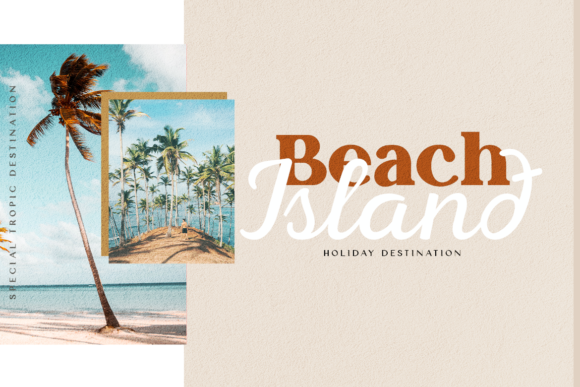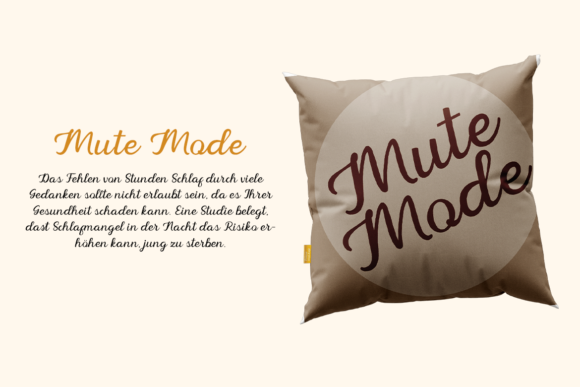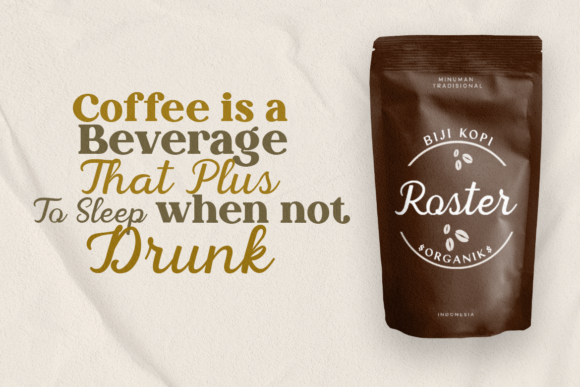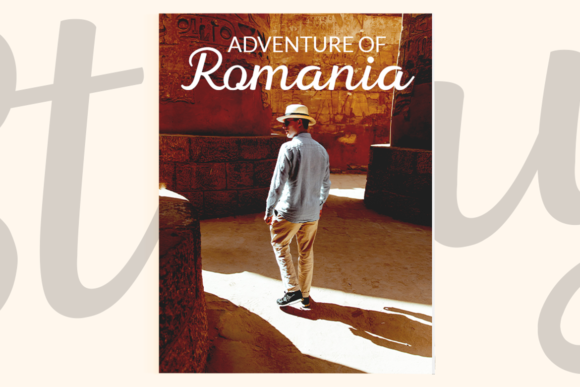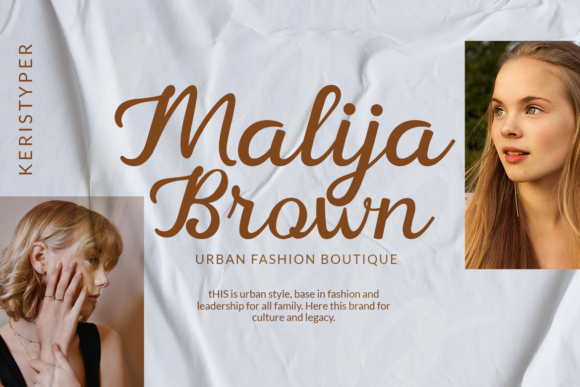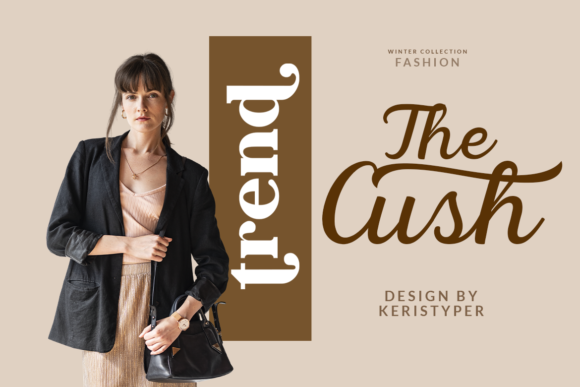
Discover the Elegance of Handwritten Design
There’s nothing quite like the thrill of creating something beautiful from scratch. Whether you’re working on a new logo, crafting the perfect social media post, or designing a book cover, the process can be just as magical as the end result. As you sit in front of your computer, pencil in hand, or fingers on keyboard, the possibilities begin to swirl in your mind.
That’s where the Carlony Font comes in – a delicate, elegant, and flowing handwritten font that brings a touch of sophistication to any design. With its beautiful and well-balanced characters, it’s the perfect addition to your design arsenal. Whether you’re a seasoned pro or just starting out, the Carlony Font is an invaluable tool that will help you create spectacular designs that leave a lasting impression.
Carlony Font Key Features
- Unique Characteristic: Carlony Font features a unique blend of modern and vintage elements, making it ideal for creative projects that require a distinctive look.
- Style: Carlony Font is available in a single style, but its versatility makes it suitable for a variety of design applications, from body text to display headings.
Carlony Font Review
Overall, I found Carlony Font to be a unique and stylish font that could add a touch of elegance to various design projects.
Here are some of its strengths: ✨
- Fancy and creative, making it perfect for luxury brands, invitations, and special events.
- Features a wide range of font weights, from light to bold, giving designers more flexibility.
- Works well in headings and titles, grabbing the reader’s attention with its flair.
- Supports a range of languages, making it suitable for international projects.
- May be challenging to read in body text due to its ornate design.
- Could be overwhelming if used excessively, so moderation is key.
- May not be suitable for digital products or applications where readability is crucial.
Overall, I’d say Carlony Font is a great choice for designers looking to add a touch of sophistication and creativity to their projects. While it may have its limitations, it’s a versatile font that can be used effectively in the right contexts.
Tips: Use Carlony Font for titles and headings to add a touch of elegance to your design.
Tips: Use Carlony Font for typography-heavy designs, such as posters or brochures.
Tips: Use Carlony Font for presentations and documents to add a touch of sophistication.
Carlony Font is ideal for:
- Title and heading designs
- Presentation and document design
Alternatives to Carlony Font for Designers
Great Vibes is a beautiful, elegant script font that is perfect for creating a luxurious and sophisticated look. It’s ideal for use in wedding invitations, branding, and other high-end designs.
Compared to Carlony Font, Great Vibes has a more refined and polished feel, making it a great choice for designers who want to add a touch of elegance to their designs. While Carlony Font has a more playful and whimsical feel, Great Vibes is more formal and sophisticated.
Carolyna Pro is a modern script font that is designed for use in a wide range of applications, from branding and advertising to editorial and packaging design.
Compared to Carlony Font, Carolyna Pro has a more modern and edgy feel, making it a great choice for designers who want to create a bold and eye-catching look. While Carlony Font has a more classic and timeless feel, Carolyna Pro is more contemporary and trendy.
Alex Brush is a beautiful, hand-drawn script font that is perfect for creating a personal and emotive look. It’s ideal for use in wedding invitations, branding, and other designs where a touch of personality is needed.